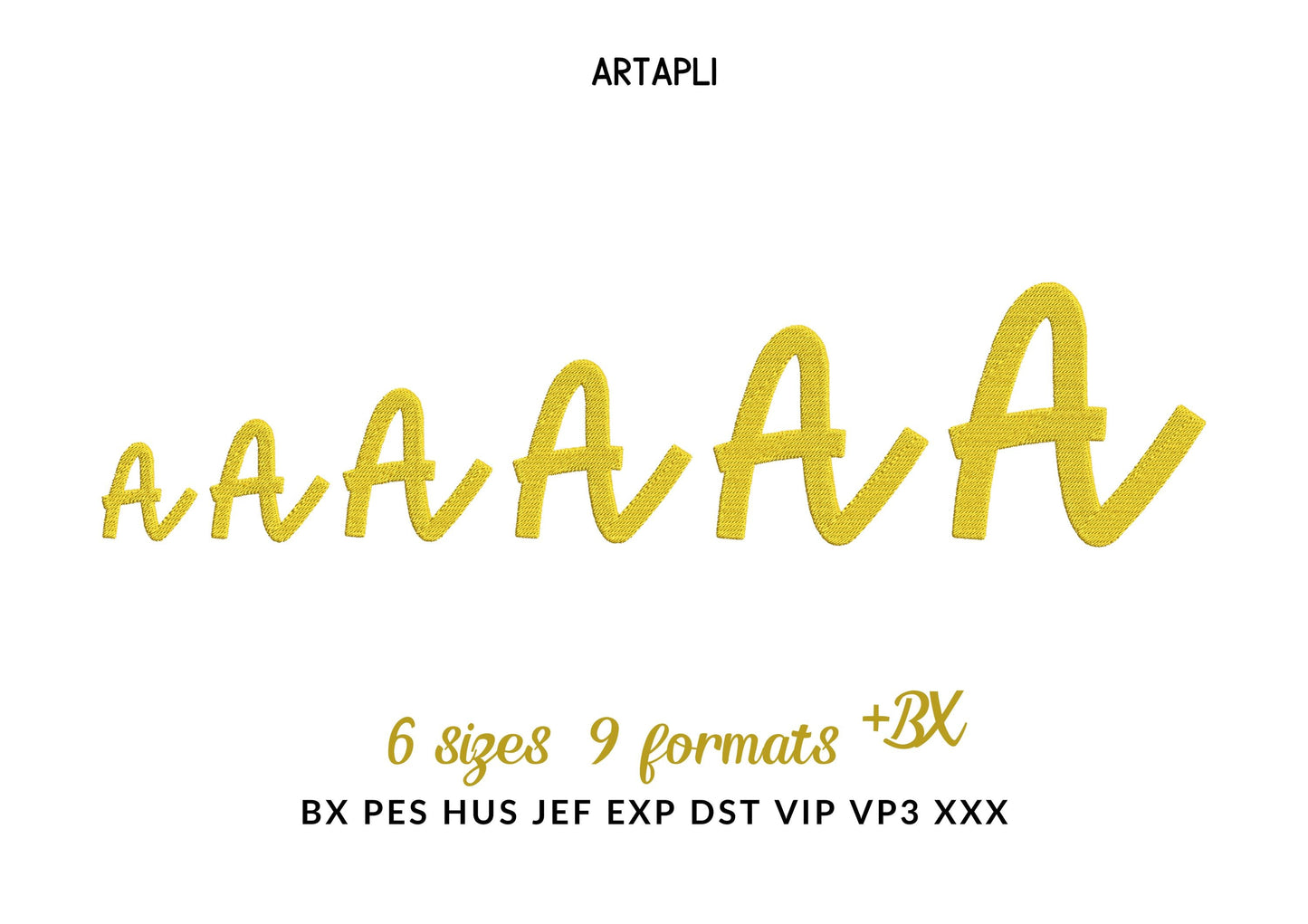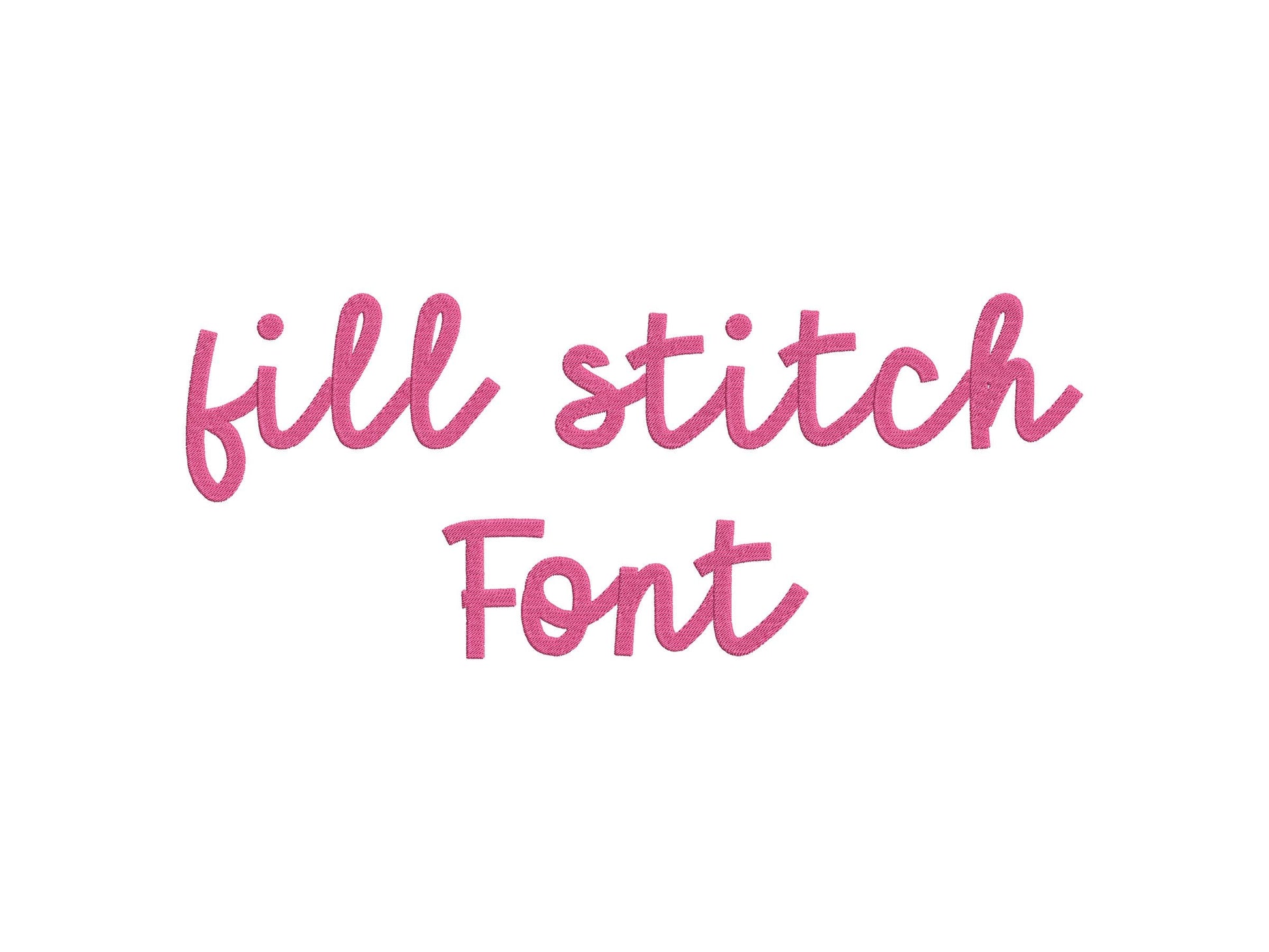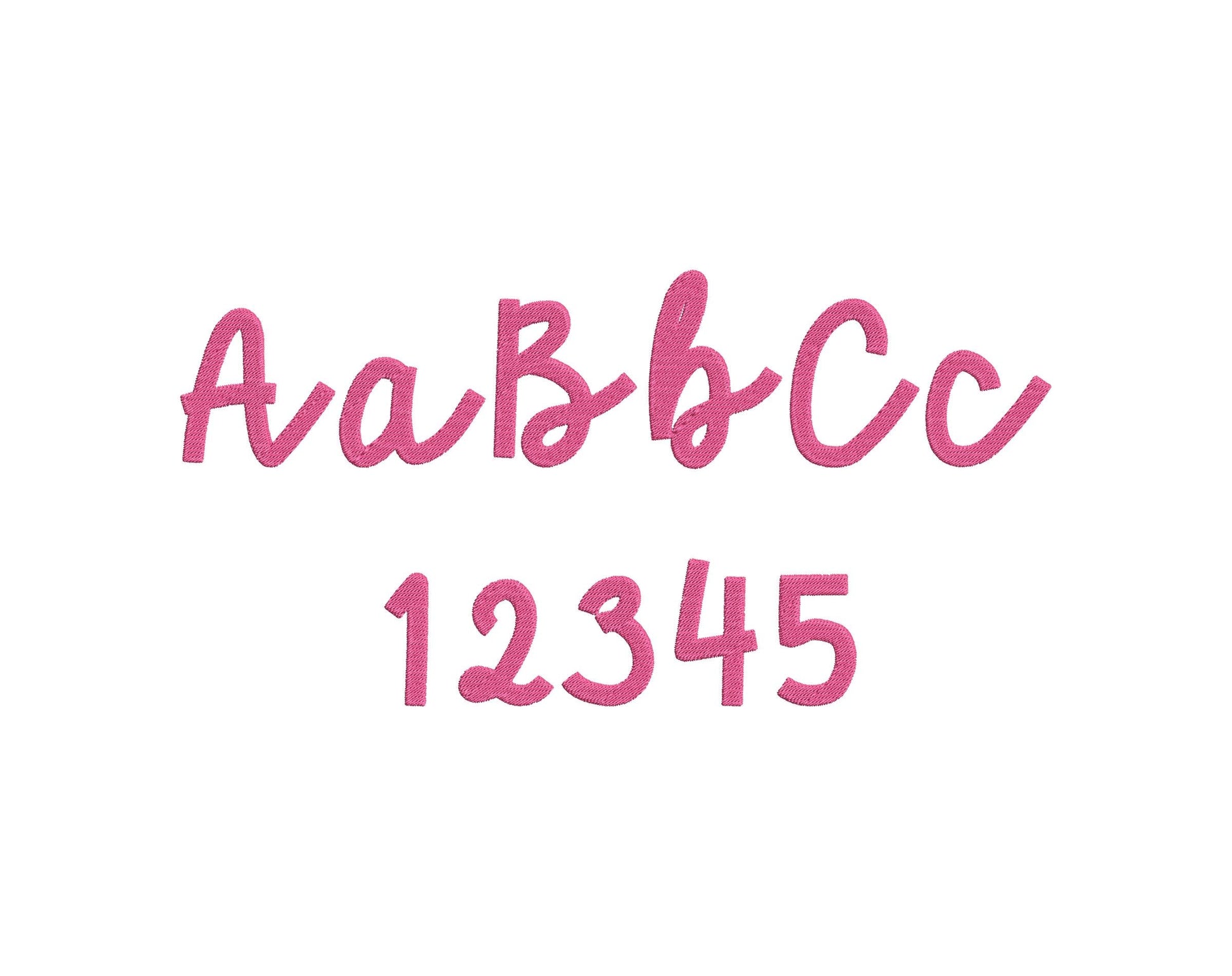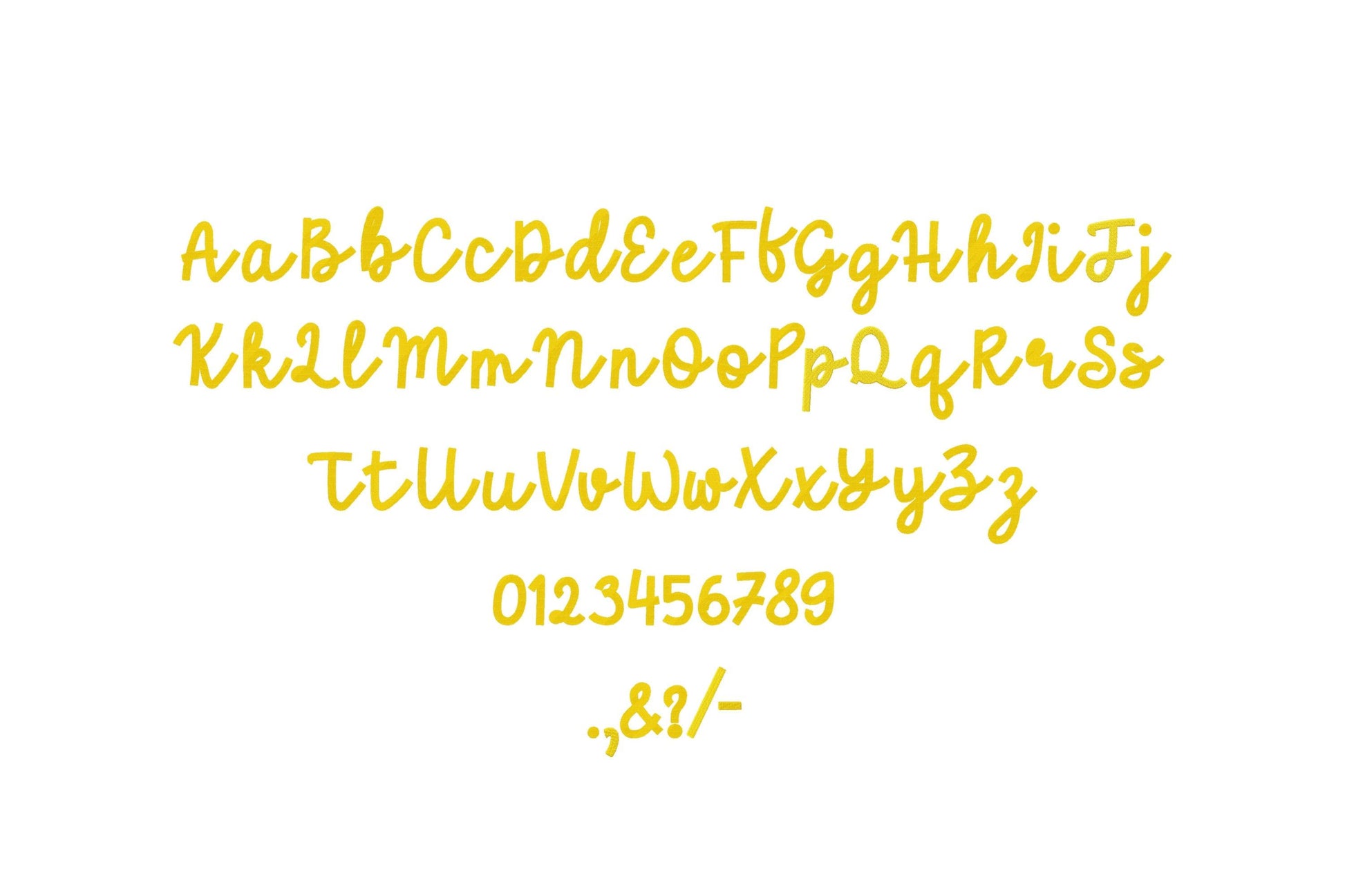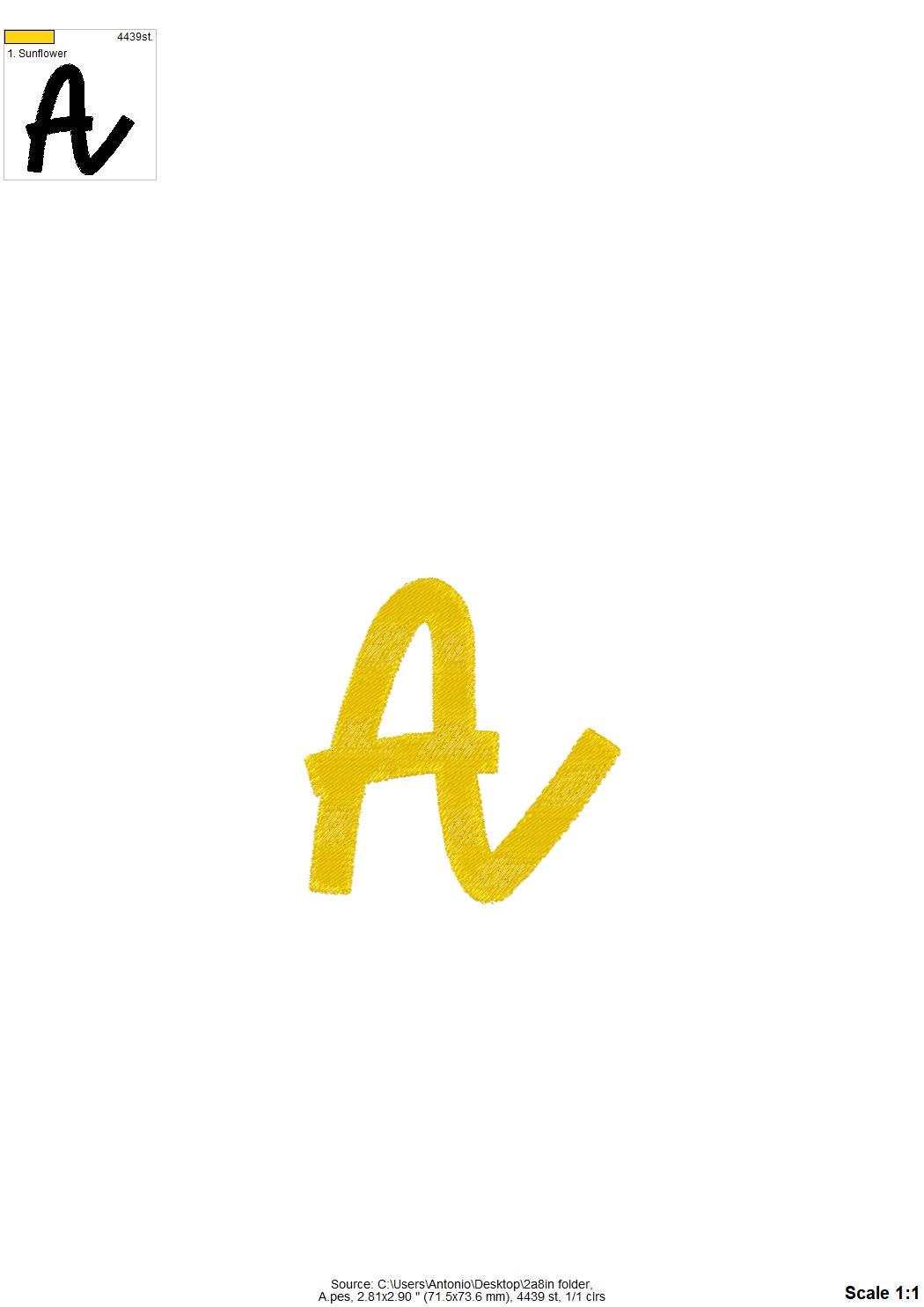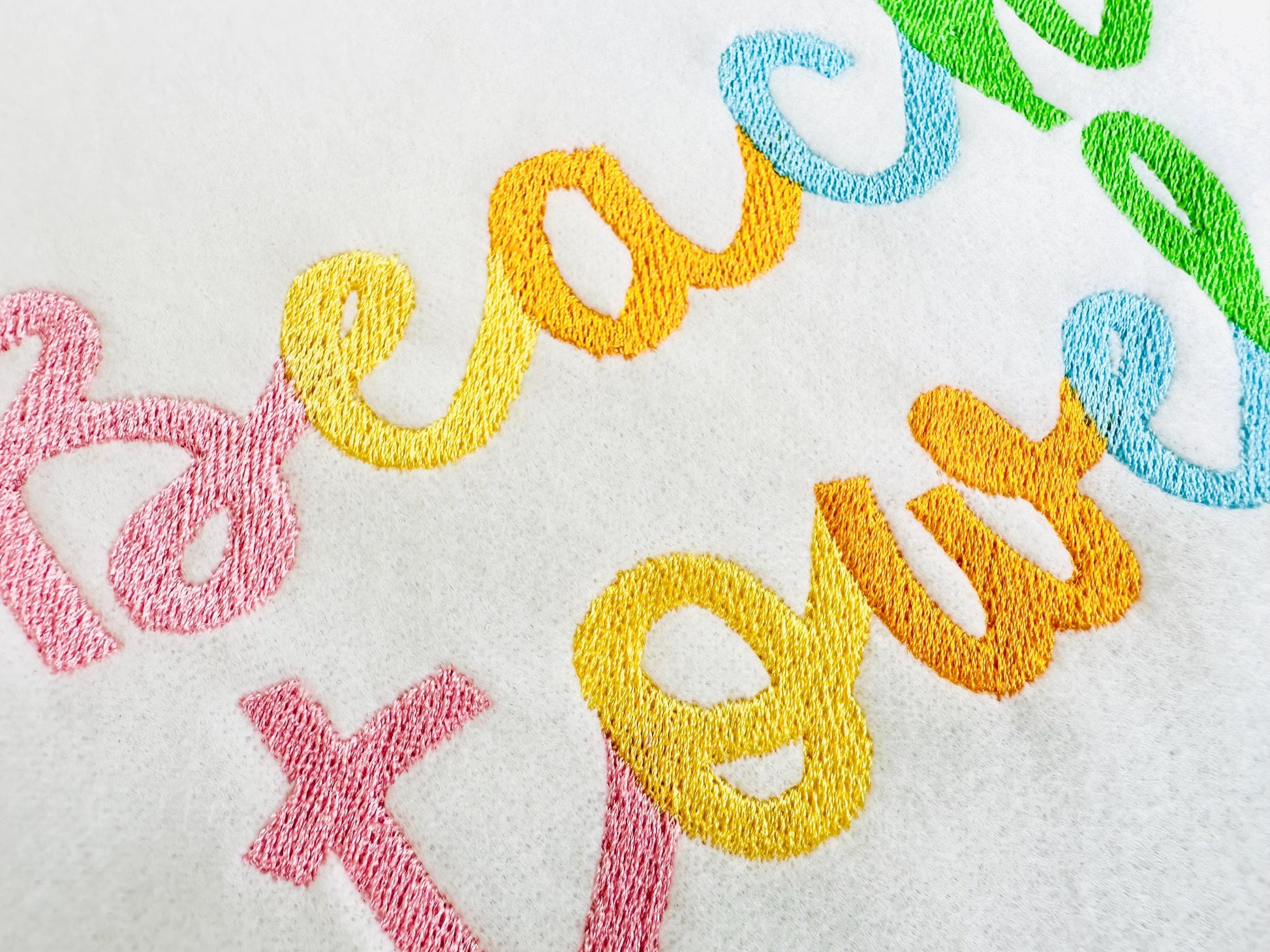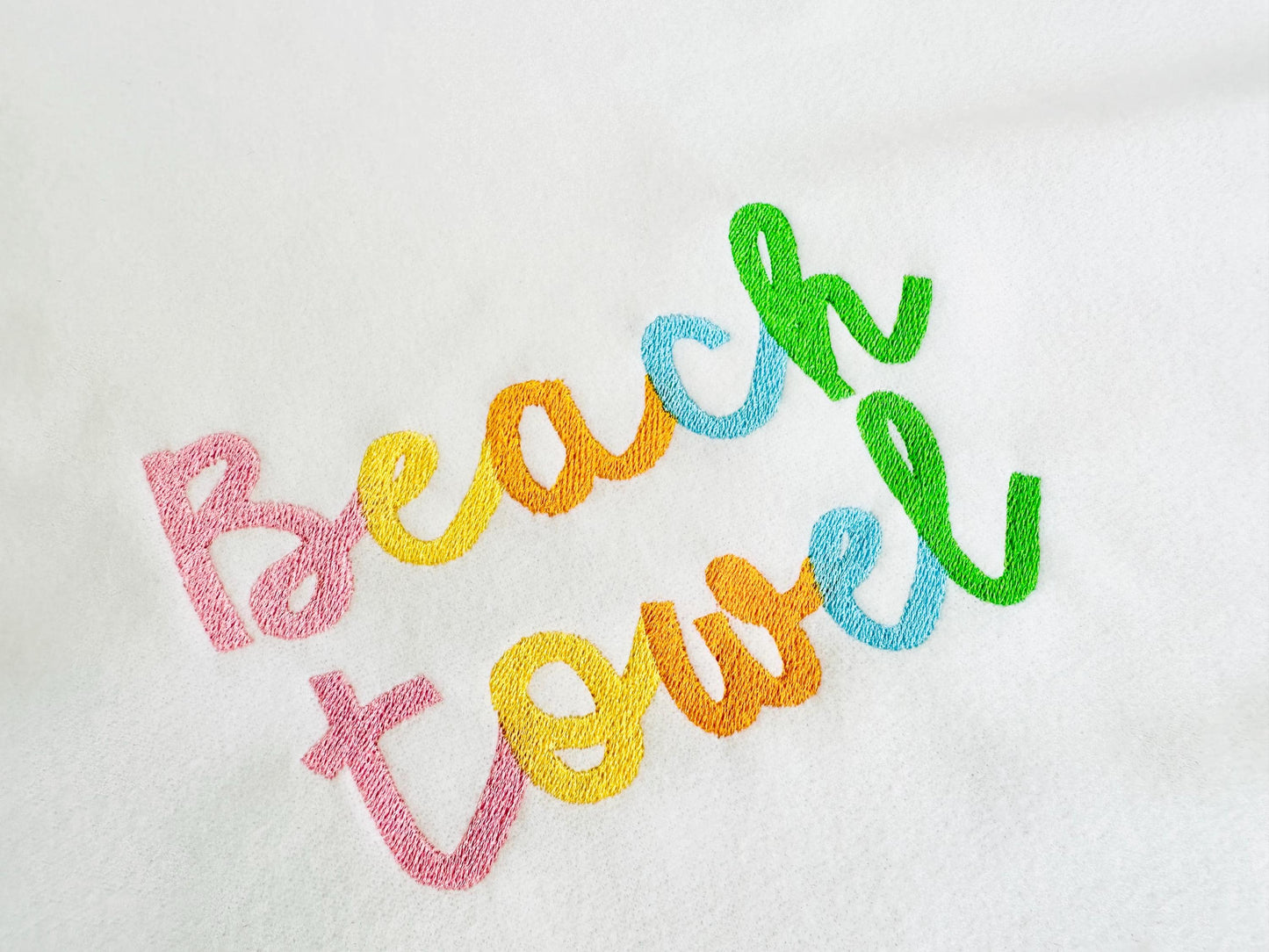
Or click to open the linkA bold handwritten script in fill stitch for kids' and baby names, monograms and sayings.
Uppercase and lowercase letters, numbers 0 to 9 and punctuation, in six sizes: 1.3, 1.6, 2, 2.4, 2.8 and 3.5 inches.